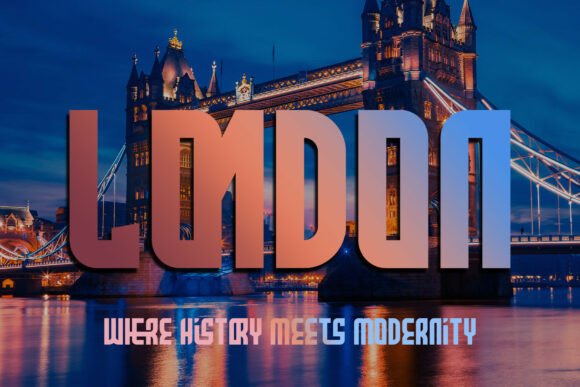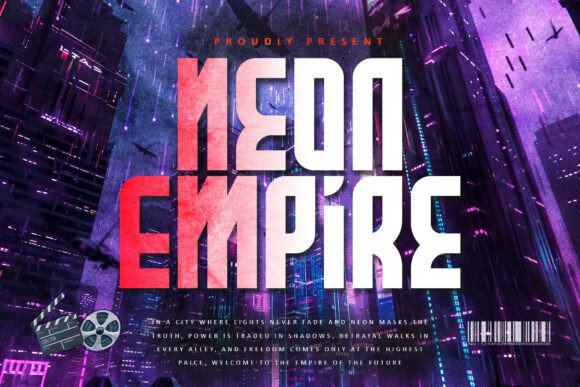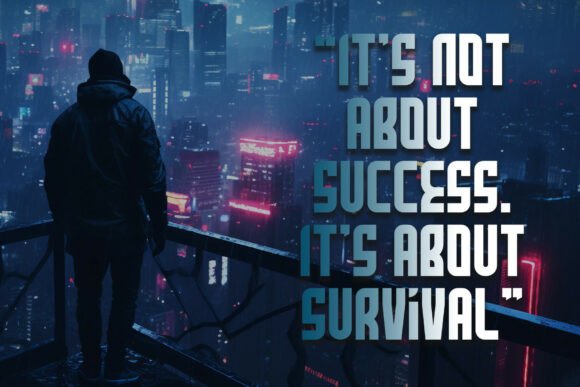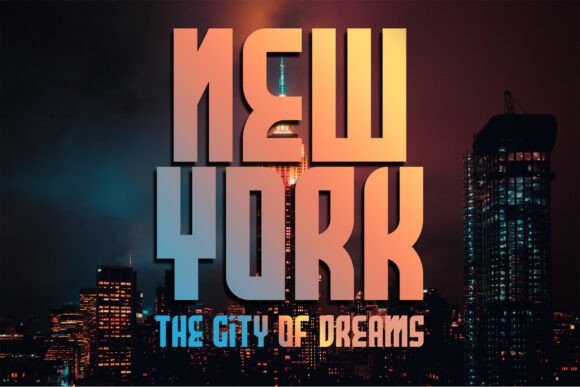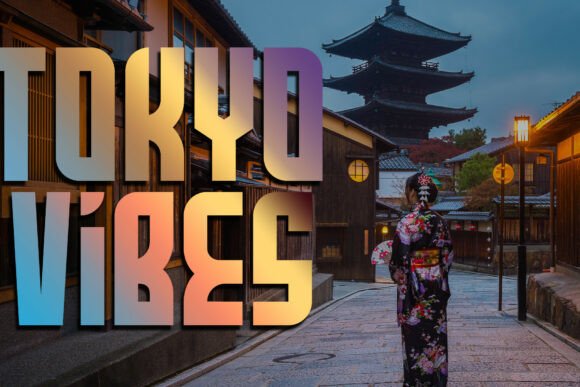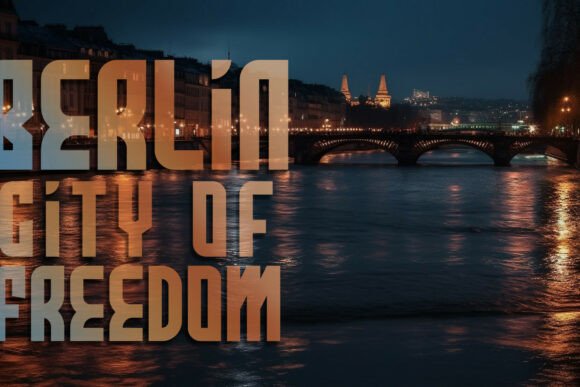
Unleash Your Design Potential with Exhotic Regular Font
Have you ever stared at a blank design canvas, feeling the pressure to create something truly remarkable? The moment of truth arrives when you need to make a statement with your work. That’s where the Exhotic Regular Font comes in – a modern, bold sans serif display font that’s designed to pack a punch.
Forged with industrial strength and futuristic flair, Exhotic Regular Font is perfect for designs that demand authority, impact, and style. With its blocky structure, sharp edges, and unique letterforms, this font gives you the freedom to create bold headlines, powerful logos, and eye-catching graphics that leave a lasting impression.
Whether you’re a seasoned designer or just starting out, the Exhotic Regular Font is a valuable addition to your toolkit. Its extensive character set and PUA-encoded design make it easy to access and customize, ensuring your designs stand strong and unforgettable.
Key Features of Exhotic Regular Font
- Font Family: Exhotic Regular, with a unique, exotic design that adds a touch of elegance to any text.
- Character Set: Includes a comprehensive set of characters, including Latin, Cyrillic, and Greek alphabets, as well as punctuation and symbols.
- Kerning and Ligatures: Features advanced kerning and ligature pairs to enhance the overall appearance of the text and improve readability.
Exhotic Regular Font Review
Overall, I think the Exhotic Regular Font has some great qualities, but it also falls short in a few areas. Let’s start with what works well: ✨ The font’s unique design is certainly eye-catching and can add a touch of sophistication to any design project. ✨ It’s also quite versatile, working well in a variety of contexts, from headings to body text.
Here are some specific strengths of the font:
- Highly legible, even at small font sizes
- Well-suited for use in digital design, as it scales well
- A unique, exotic feel that sets it apart from more common fonts
However, there are also some limitations to consider: ⚠️ The font can feel a bit over-the-top or gimmicky in certain contexts, which may not be suitable for all design projects. ⚠️ Additionally, the font’s unique design can also make it difficult to read at certain font sizes or in certain lighting conditions.
Overall, I think the Exhotic Regular Font is a solid choice for designers looking to add some visual interest to their projects. While it may not be the best fit for every project, it’s definitely worth considering for those looking to push the boundaries of their design.
1. Use Exotic Regular Font for headings and titles to add a touch of elegance.
2. Pair Exotic Regular Font with other fonts to create a unique and interesting typography.
3. Experiment with different font sizes and styles to add visual interest.